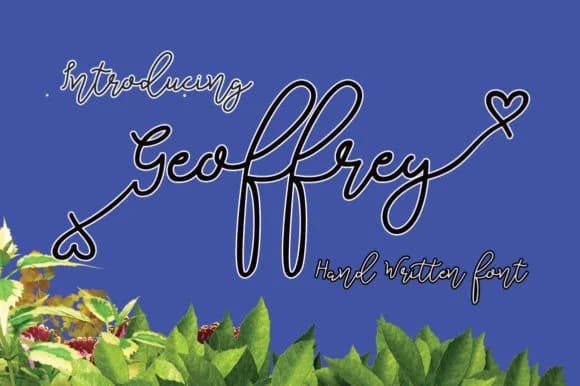
Picture a webcomic panel where speech bubbles need lettering that feels genuinely handdrawn but shaped with unmistakable intention. Geoffrey is Microcreative's answer: a script-handwritten typeface that balances loose, personal handwriting with the refined polish of classic comic book lettering.
This typeface shines across indie webcomic lettering, bringing raw character to speech bubbles and captions without the mechanical stiffness that derails most handwritten fonts. Handwritten greeting card suites and invitation sets gain authentic warmth from its flowing lines, while playful t-shirt designs feel personal rather than mass-produced. For chalkboard cafe menu boards where brand personality becomes part of the selling point, for DIY vinyl sticker sheets that craft makers customize and resell on Etsy, and for boutique product labels where you're competing on voice and character instead of volume, Geoffrey delivers that balance.
What makes it worth reaching for is how well it performs across contexts. The typeface stays legible whether you're running it large across a poster or tight on a small product sticker. That equilibrium between energetic expressiveness and genuine readability is what separates handwritten fonts that feel authentic from ones that feel forced or overworked. Get Geoffrey on Creative Fabrica and let your lettering do what the best handwriting always does: connect your brand to the people who find it.
- Elegant, Flowing, Geoffrey
Geoffrey Font is a script font that shines as a display or heading face. Pair it with a clean sans-serif or serif font for body text β the contrast creates a clear hierarchy while the two styles stay balanced and easy to read.